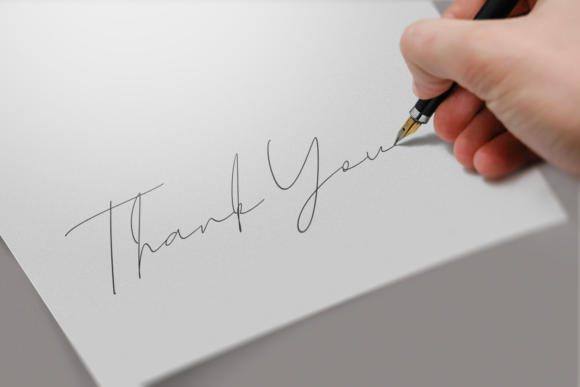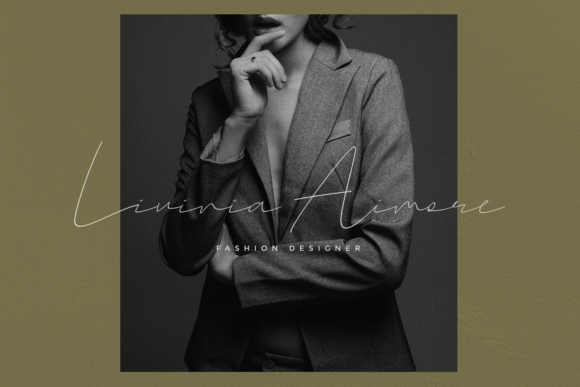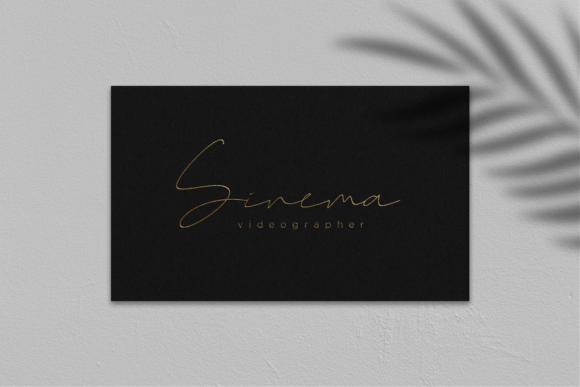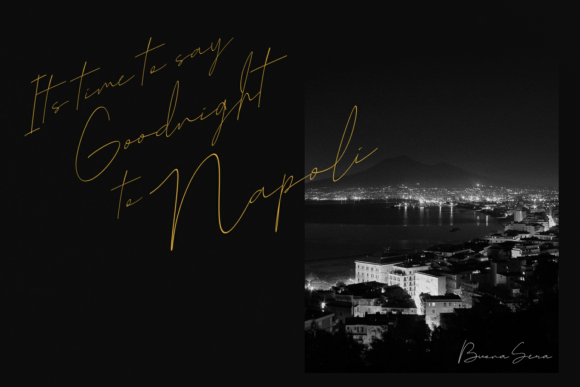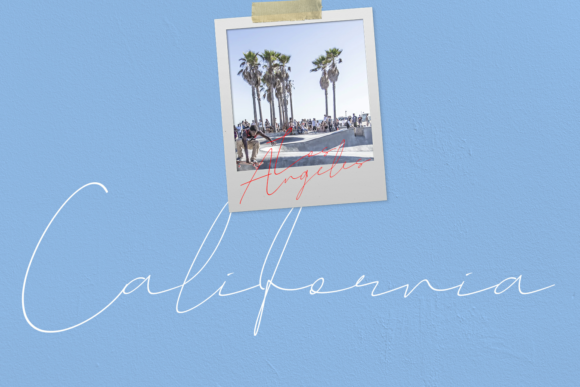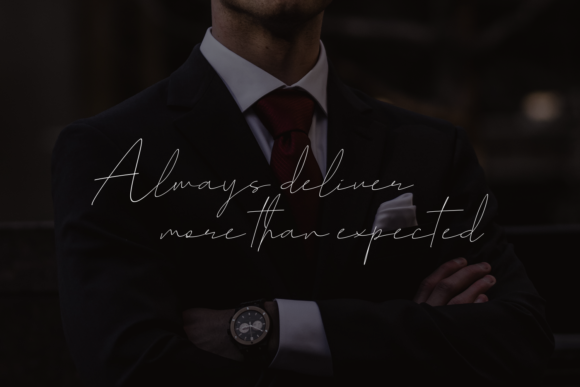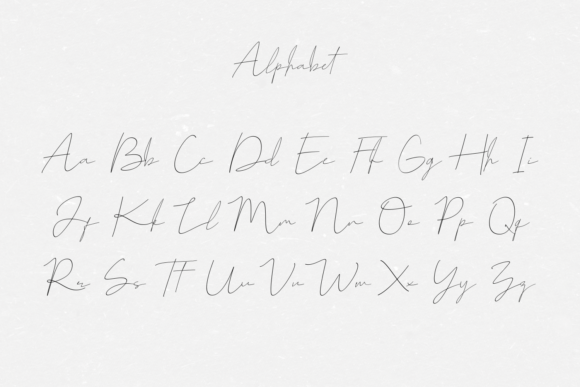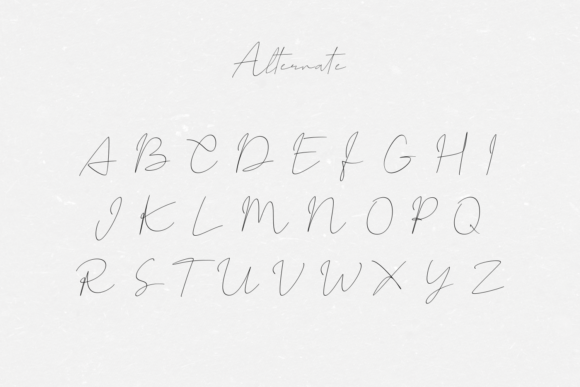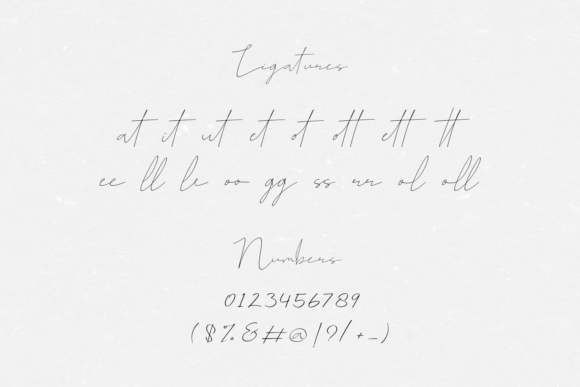
Corleone Font
About Corleone Font
Corleone is a handwritten script font with thin flowing curves. It is very suitable for any designs you want to make look elegant & romantic!